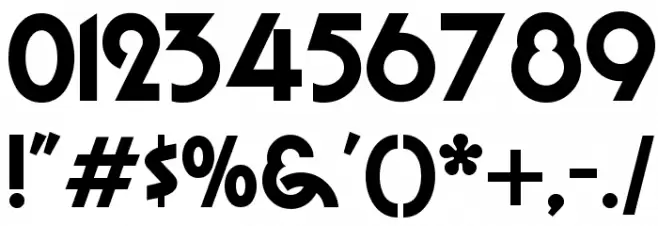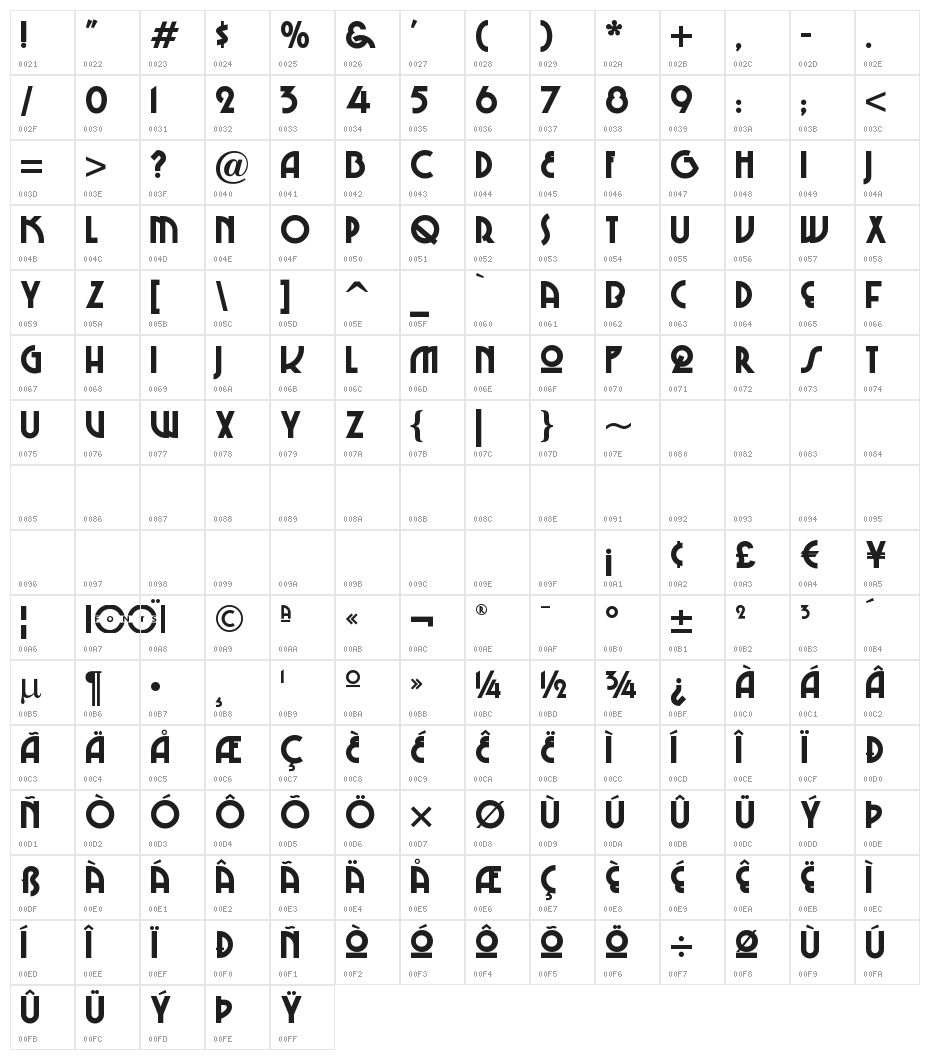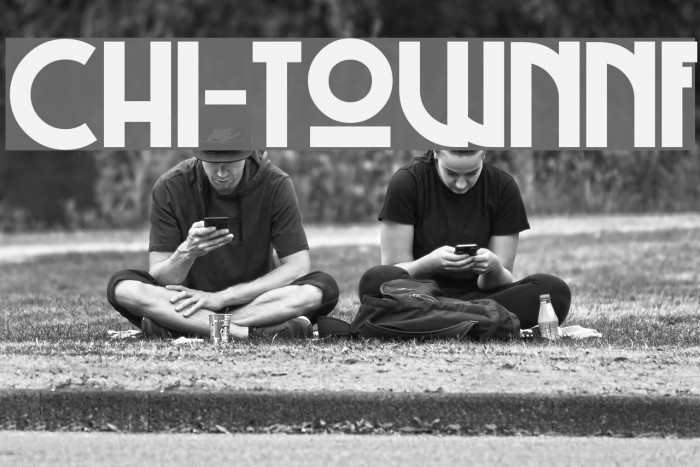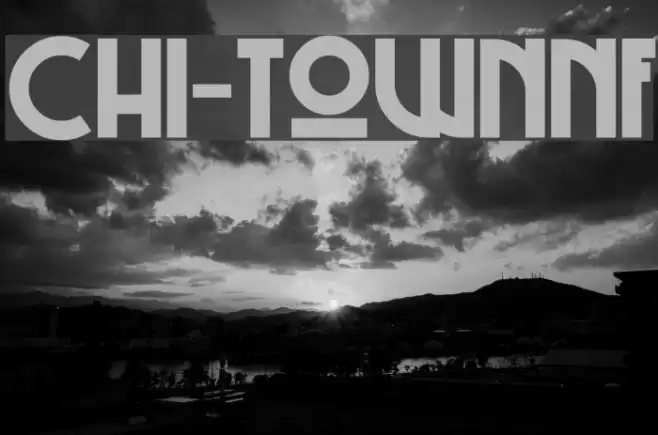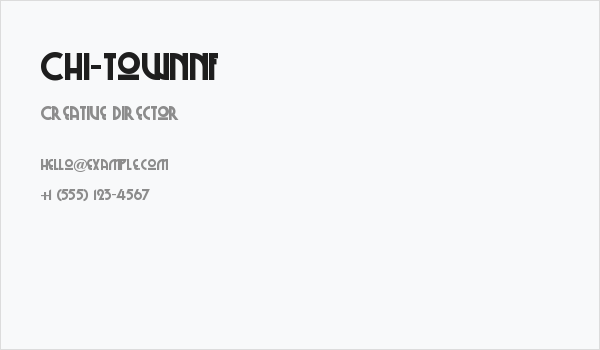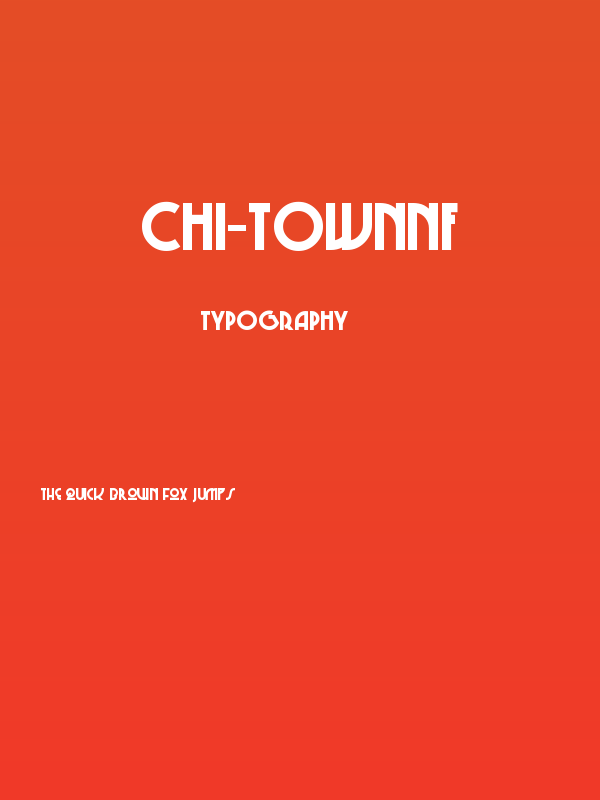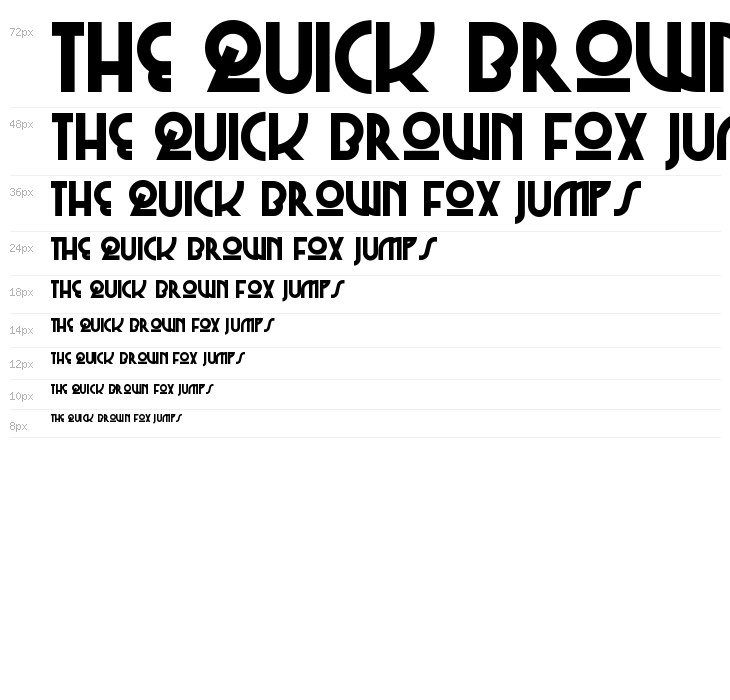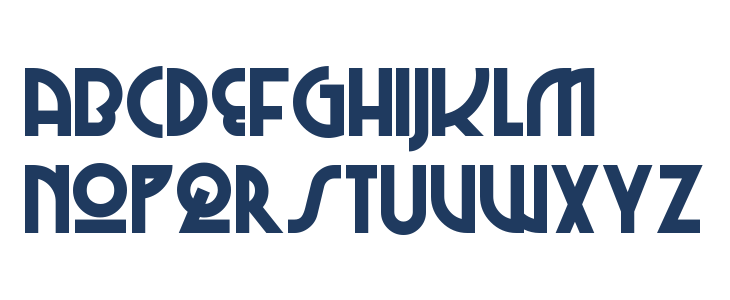
Chi-TownNF Font
✎ Art Deco
Chi-TownNF Description
This font features a bold, geometric style with a strong Art Deco influence. The characters are characterized by their sharp angles and clean lines, creating a sense of modernity and sophistication. The uppercase letters are particularly striking, with a consistent height and width that gives them a uniform appearance. The lowercase letters maintain the same geometric style, offering a cohesive look across the typeface. Numbers and special characters are designed to match the bold and angular aesthetic, ensuring a seamless integration in any design. The overall appearance is both retro and futuristic, making it versatile for various creative projects.
| Overall Style | Modern, Retro |
| Proposed Projects | This font is perfect for branding projects, poster designs, and any creative work that requires a bold, statement-making typeface. It can also be used effectively in editorial layouts and packaging design. |